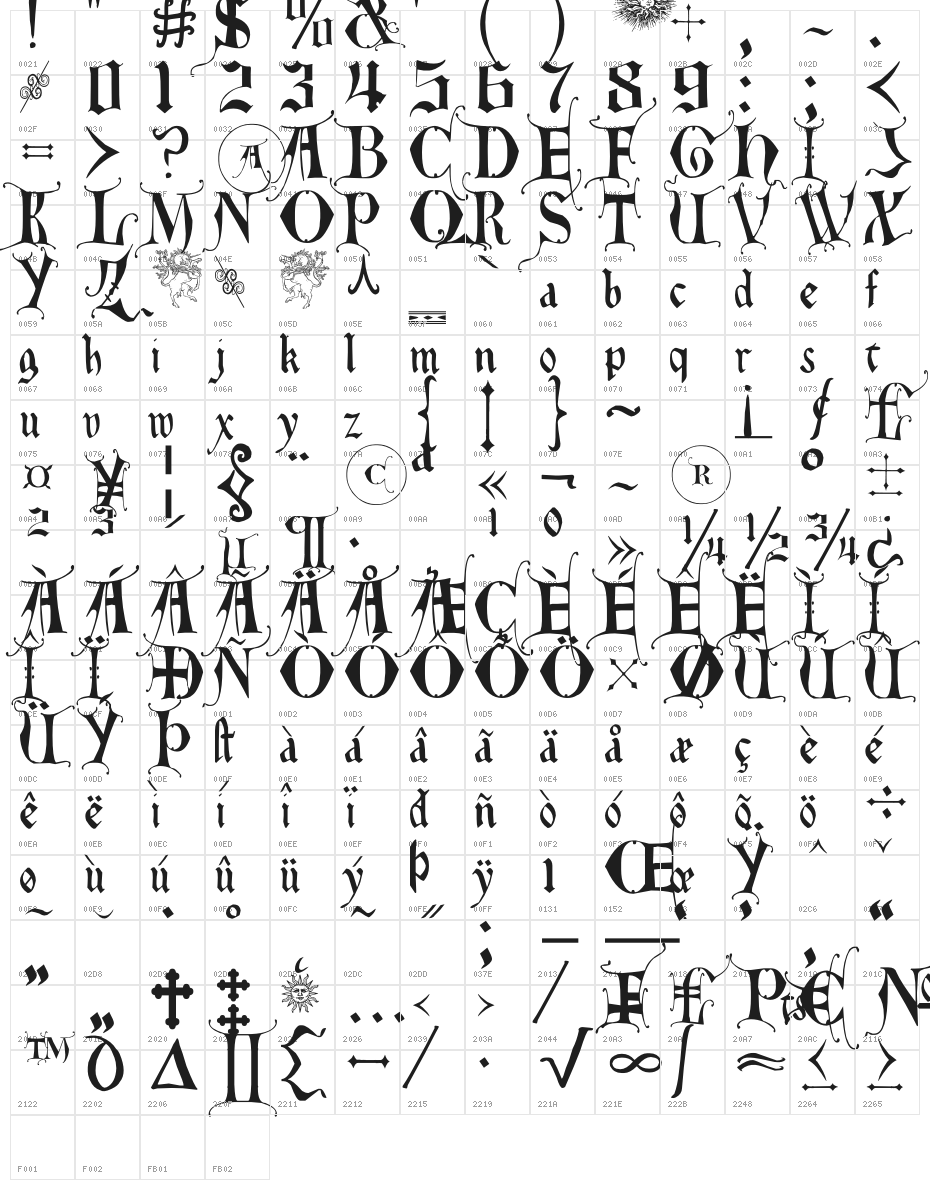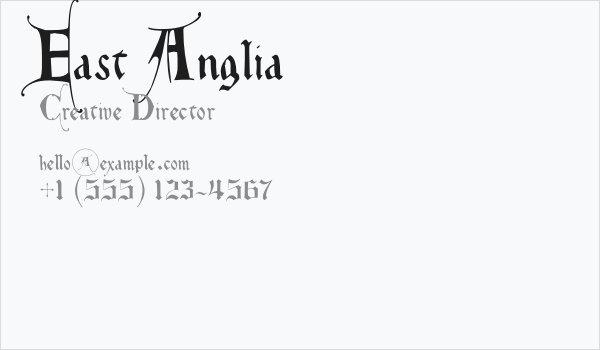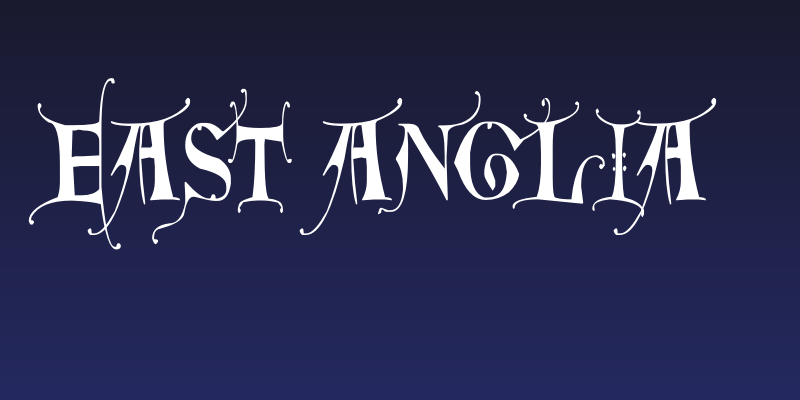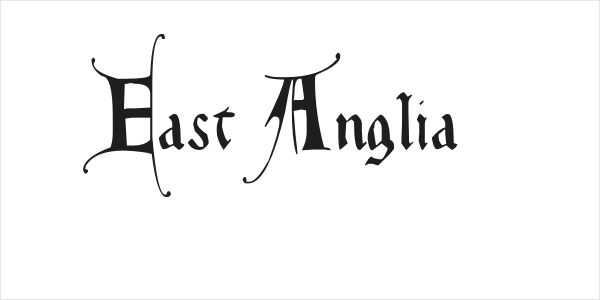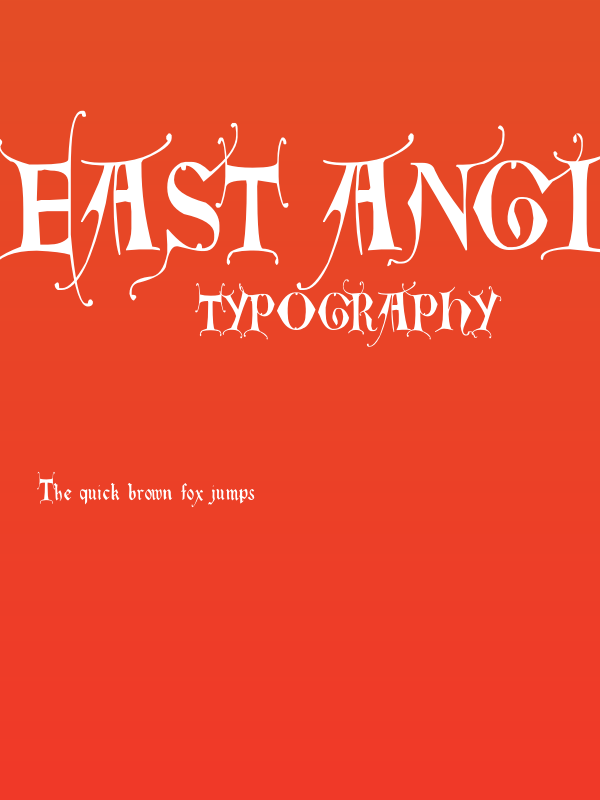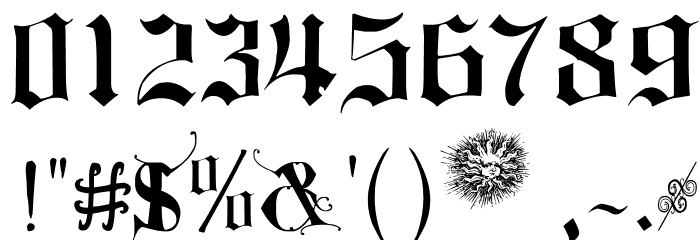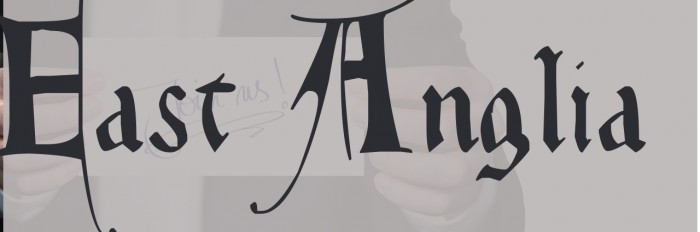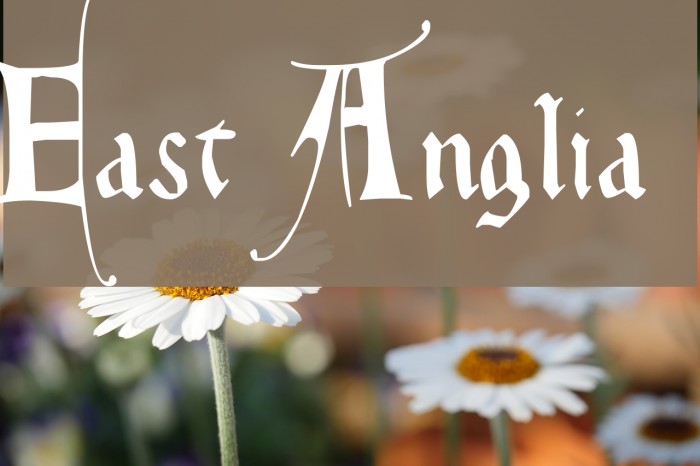
East Anglia Font
East Anglia Description
This font exhibits a classic blackletter style, characterized by its intricate and ornate design. The uppercase letters feature sharp, angular lines with decorative flourishes, giving them a medieval appearance. The lowercase letters maintain the same gothic aesthetic, with a slightly more rounded form that complements the uppercase. The numerals are bold and consistent with the overall style, featuring sharp edges and a strong presence. Special characters are equally ornate, with unique embellishments that enhance the font's historical feel. This font is ideal for projects that require a touch of elegance and tradition, such as invitations, certificates, or branding for luxury products.
| Proposed Projects | Ideal for wedding invitations, historical documents, luxury branding, and decorative posters. |